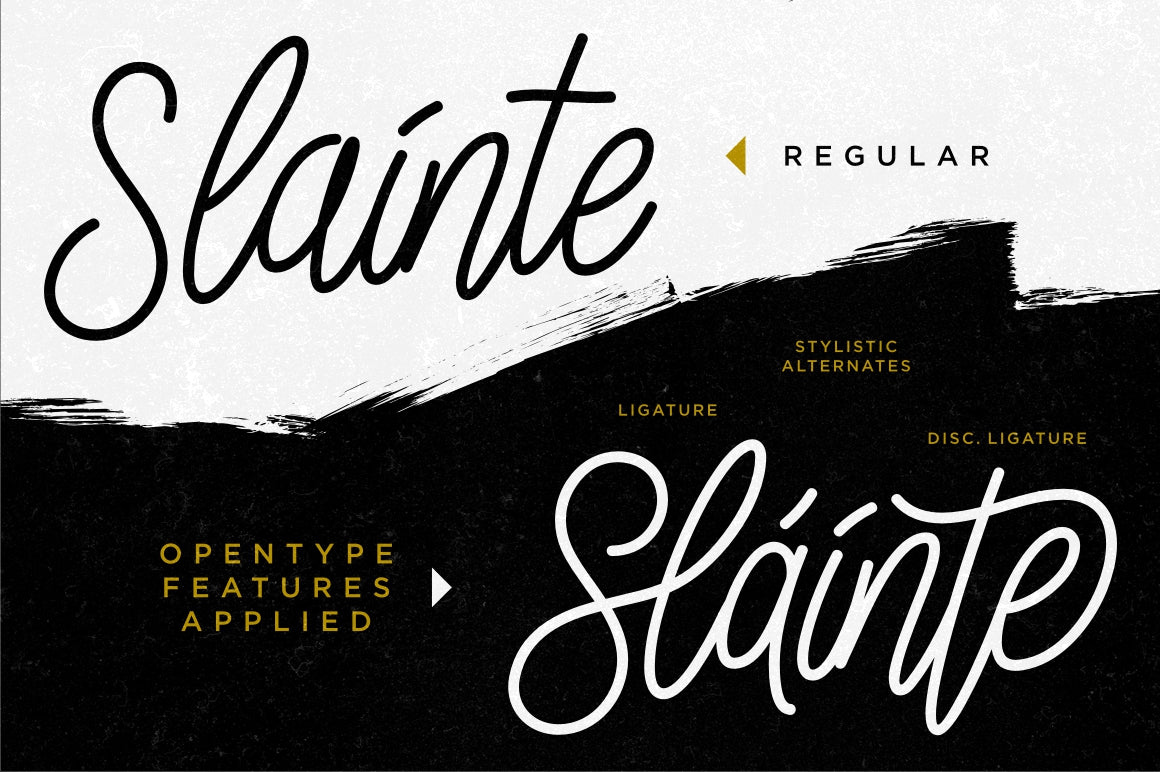
Free Slainte Script FONT
Featuring the life-changing free slainte script font. Go give some love to Pixelify for creating this top-notch free typeface. Showcase your designs like a graphic design pro by adding a new touch with this fancy font.